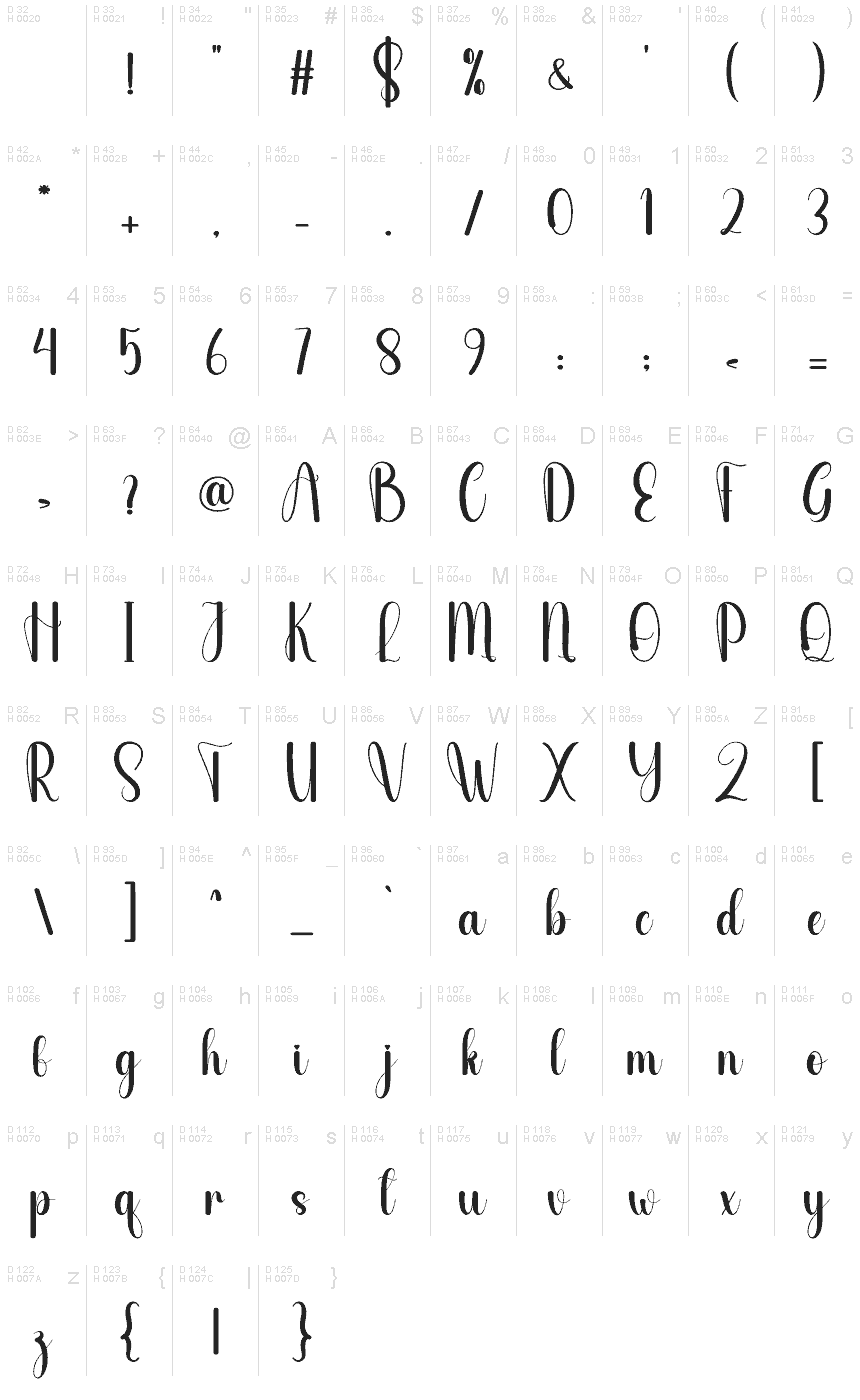
Sandy Chubby
Sandy Chubby font by Andi Moz is a free calligraphy font that stands out with its modern script elements. It embodies elegance and expressiveness, creating a sophisticated vibe that’s perfect for various design projects. Its handwriting-like feel adds a personal touch essential for every brand's identity.